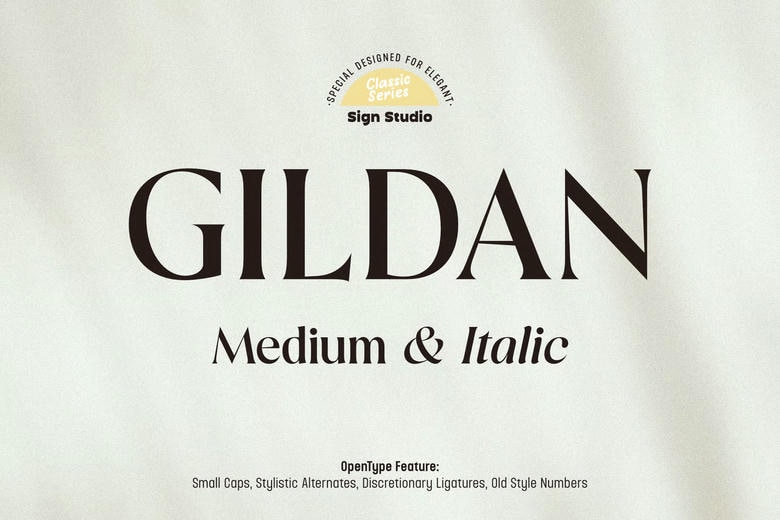
Gildan Font
Gildan is a serif font inspired by classic typography. Its elegant proportions and thoughtful details give it a timeless appearance. The Medium style has a balanced weight to Gildan’s graceful feel.
Gildan Medium works well for both display and editorial uses. Its refined letterforms make it a good option for branding, logos, magazines, book covers, posters, packaging, stationery, invitations, ads, publishing, and other polished projects.
Gildan Serif Font